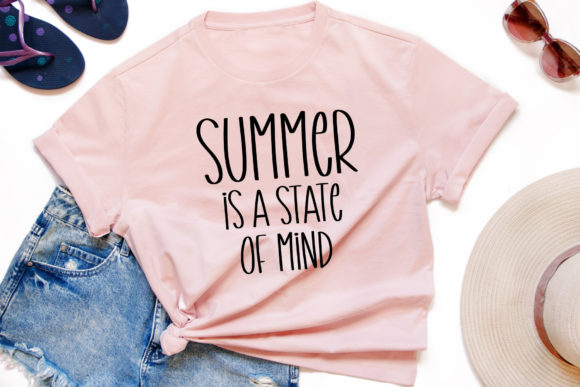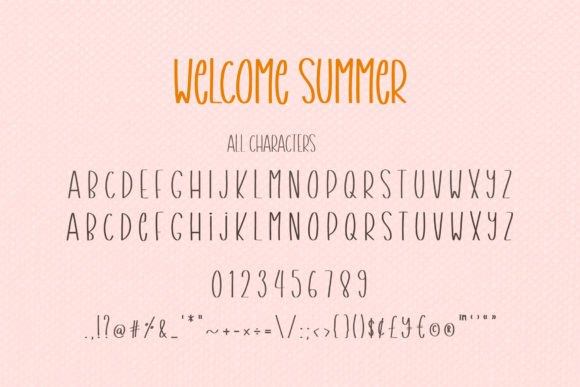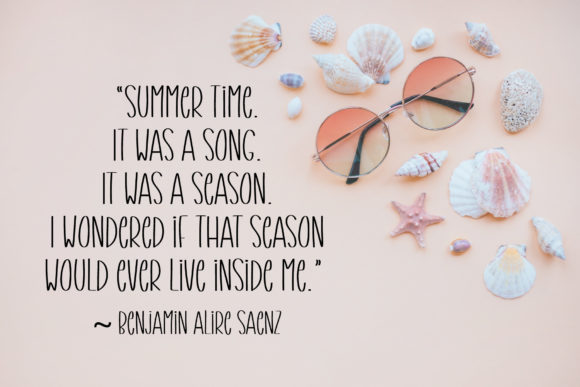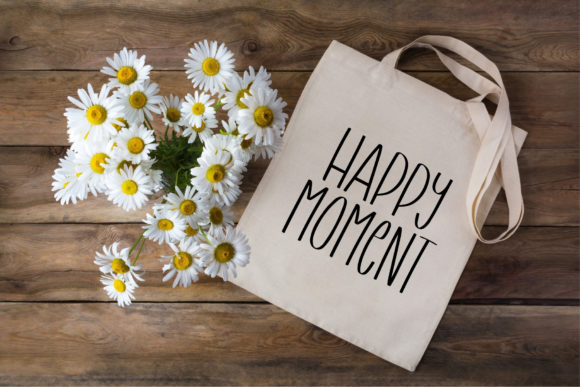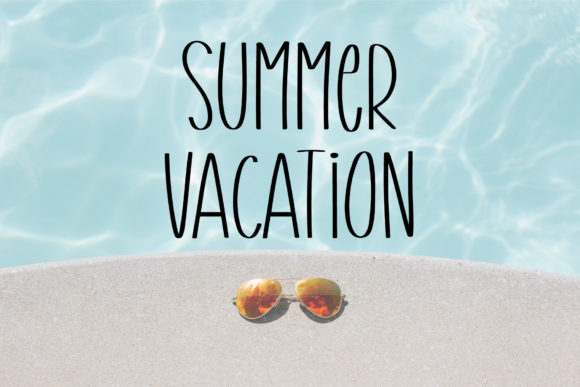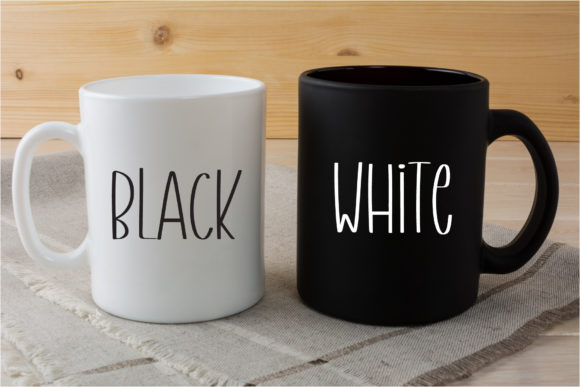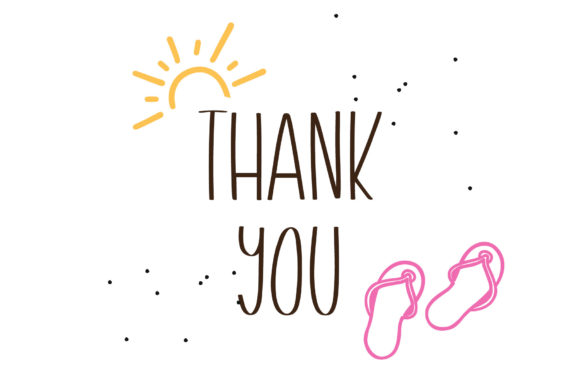
Welcome Summer Font
Welcome Summer is a friendly and cute handwritten font. It is playful and a little bit quirky. Add this font to your social media posts, posters, cards and cute greeting cards.